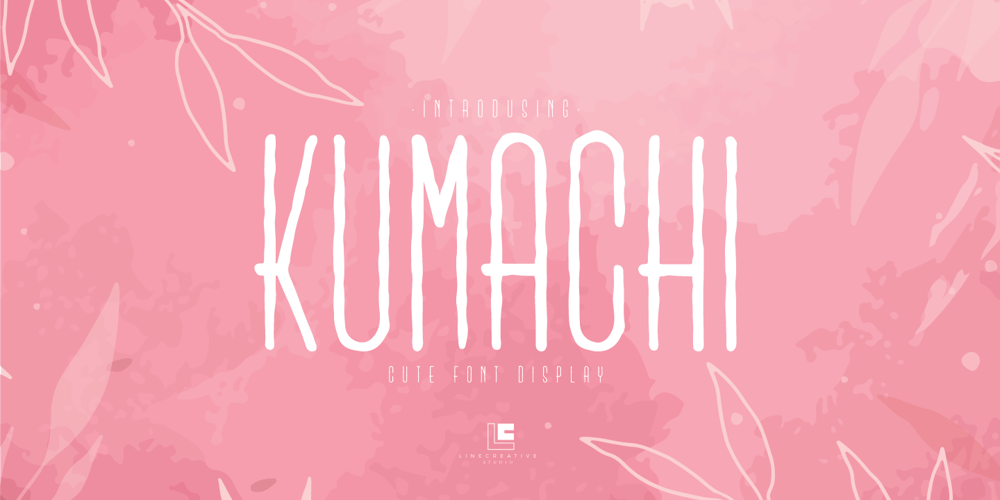
Kumachi Font Family was designed by Ari Juanda and published by Linecreative. Kumachi contains 1 styles and family package options. Kumachi is an ultra condensed font with a stamp style, and is perfect for logos, name cards, magazines layouts, headers or oven large scale artwork.